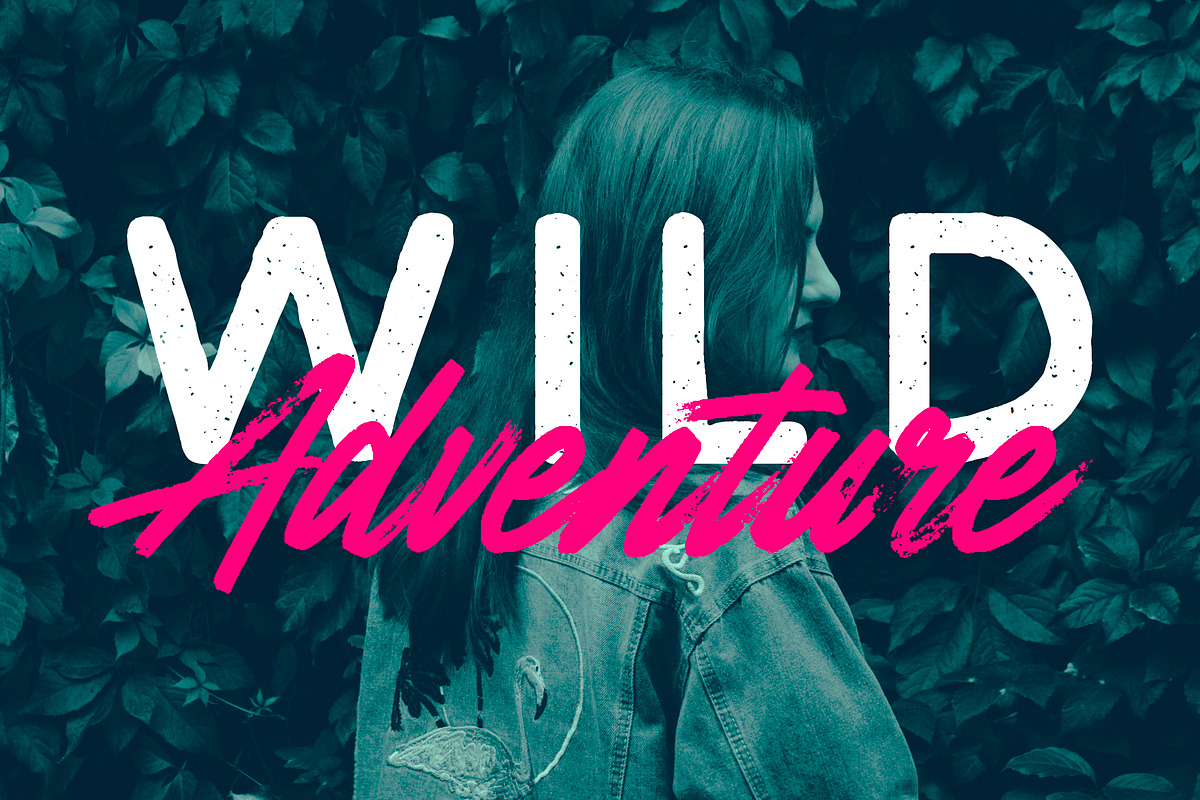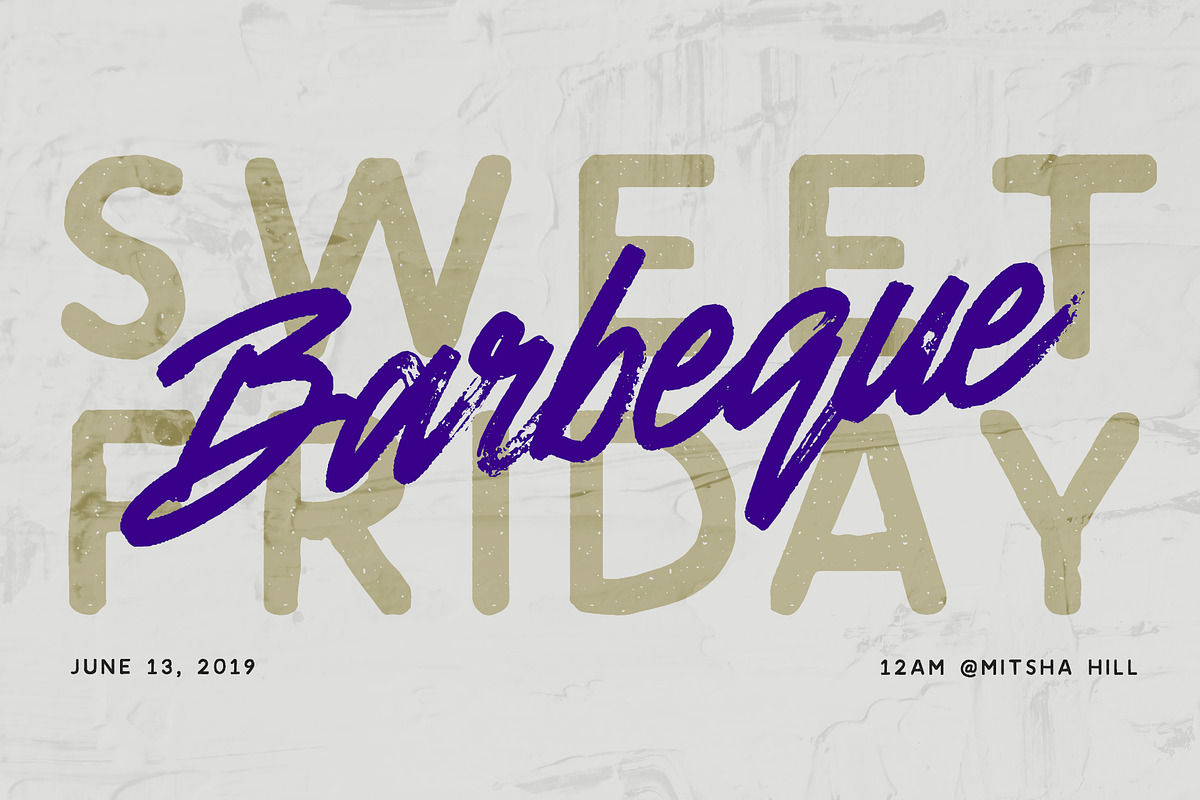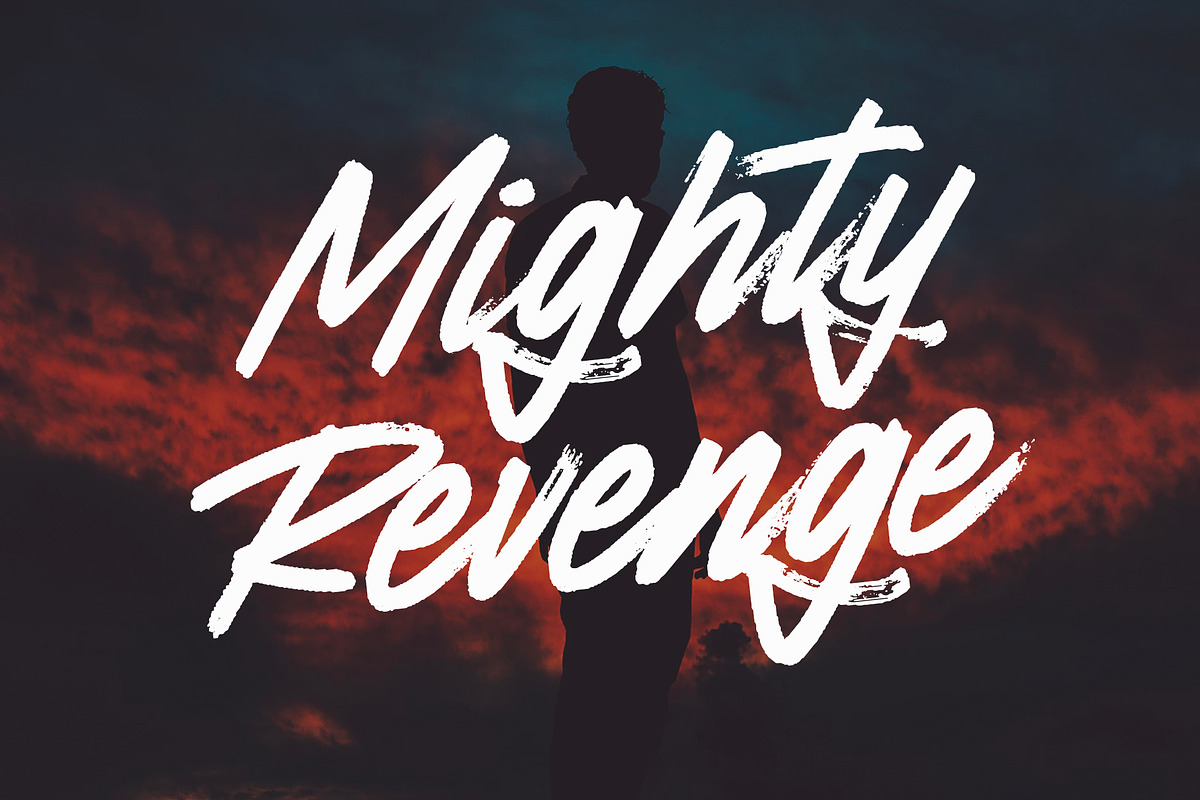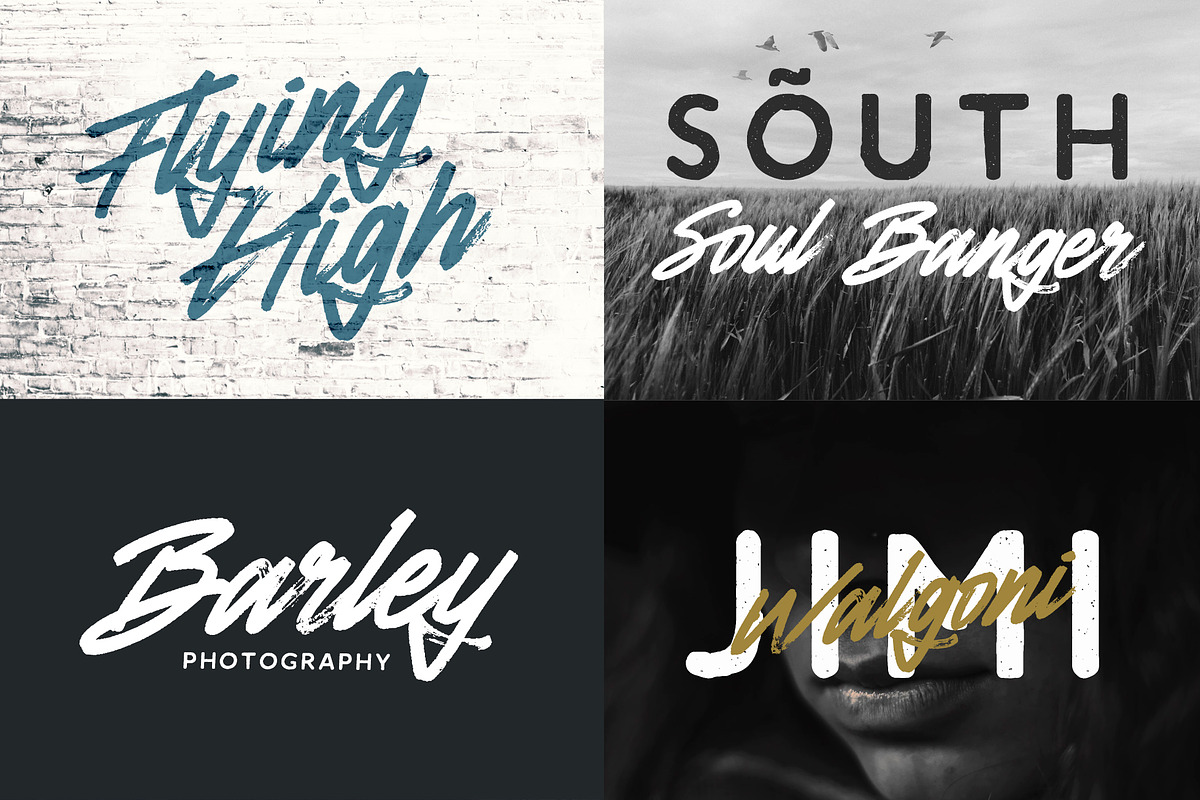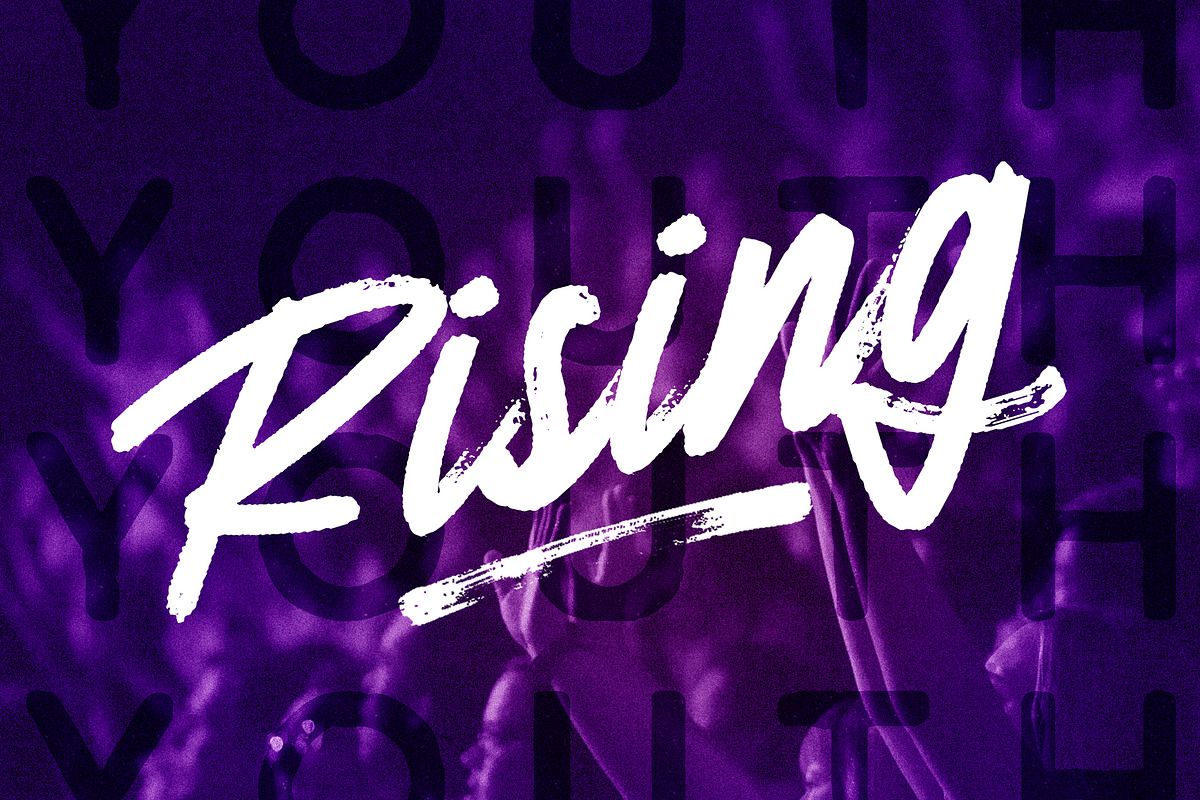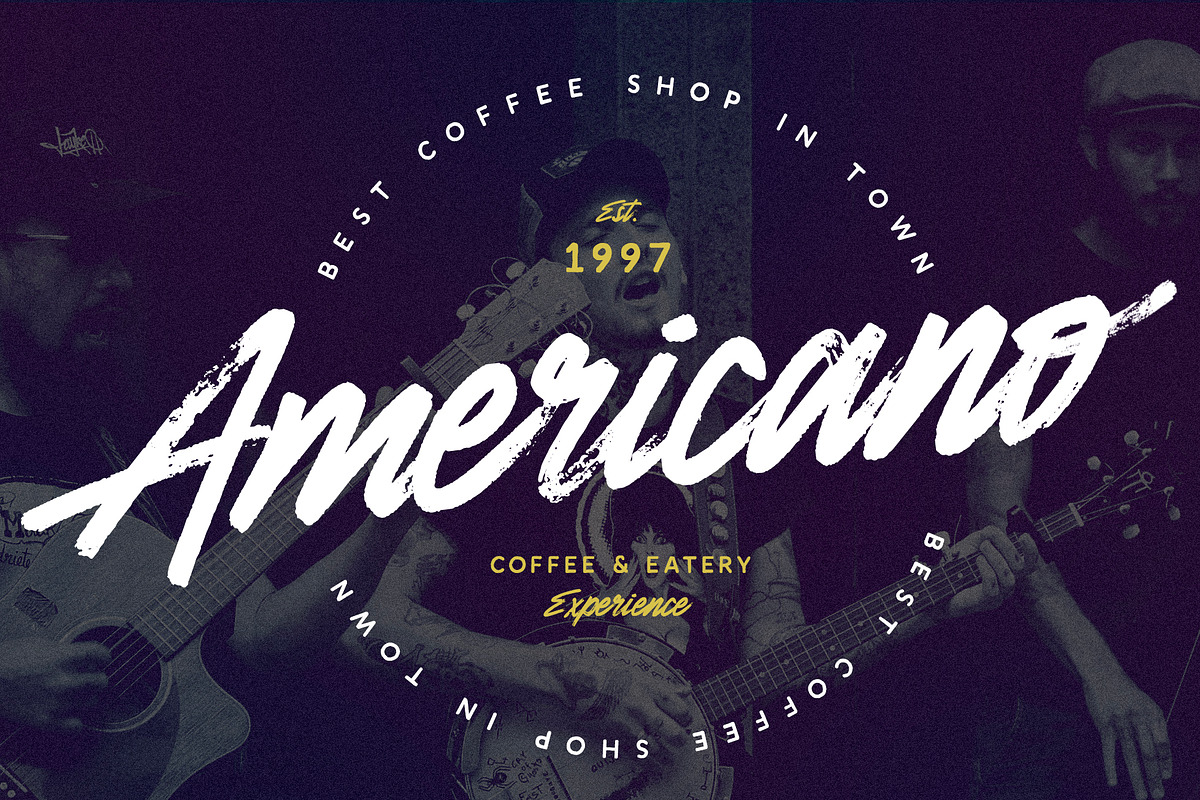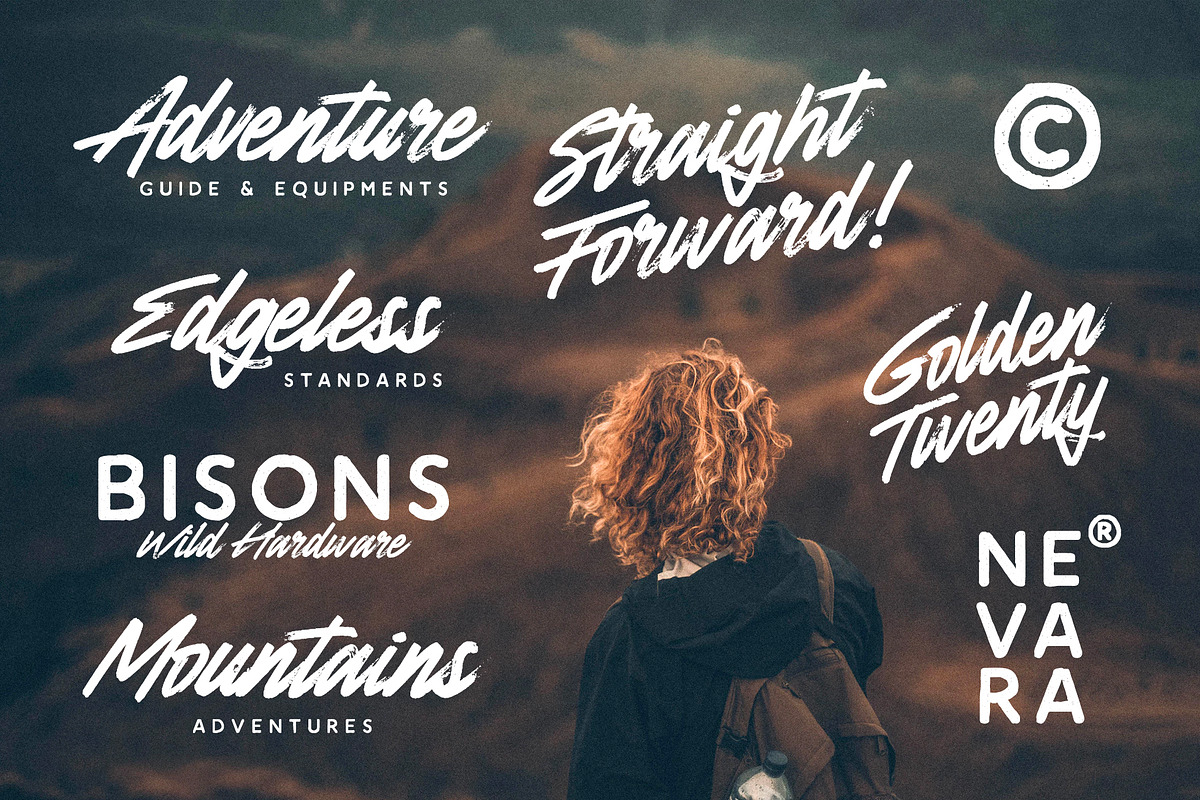
Amnesty - Handwritten Font Duo
The Amnesty font duo consists out of dry brush script and sans serif. It has dynamic modern looks, and can be used for a large range of different types of projects. The sans comes in 2 variations: Regular & Stamp.
Amnesty Script (OTF/TTF) ► Dry brush lettering / script
Amnesty Sans (OTF/TTF) ► Clean organic stroke
Amnesty Sans - Stamp (OTF/TTF) ► Great in bigger size!
Amnesty Swashes (OTF/TTF) - ► 60+ Swashes to combine with Amnesty Script, have fun!